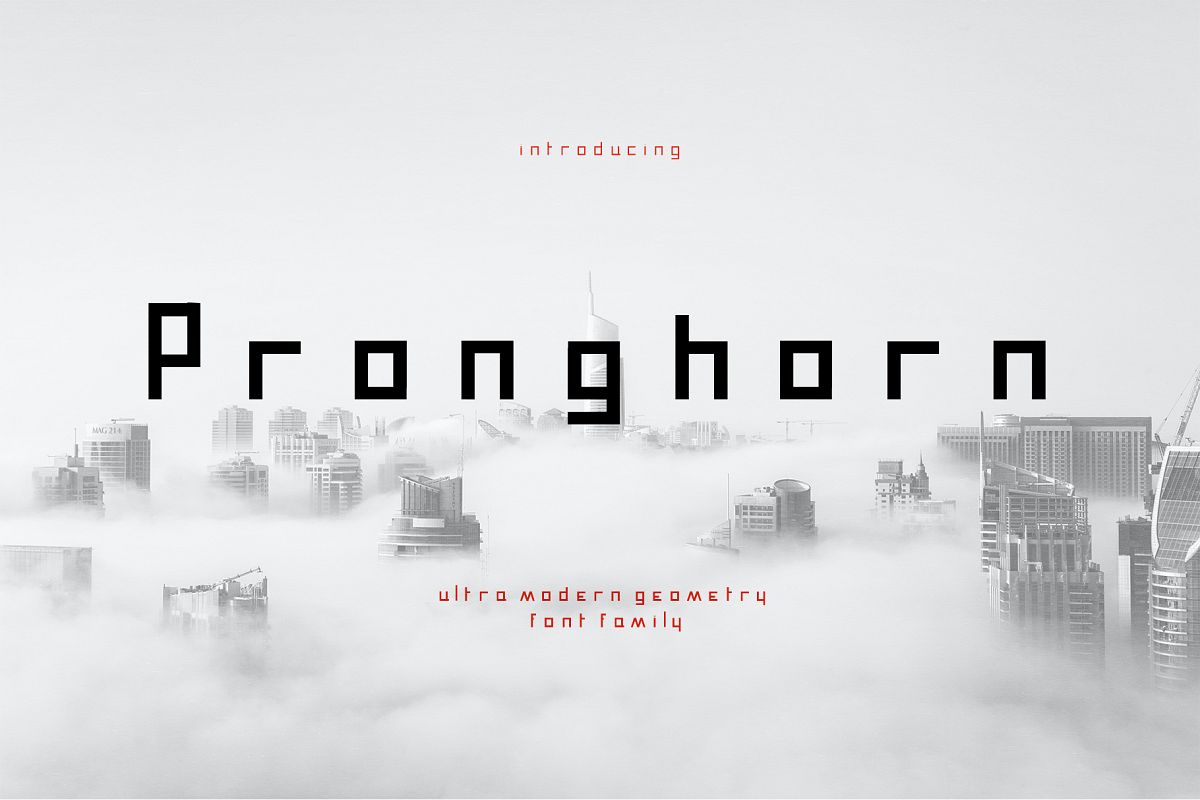
Pronghorn Font Family
Pronghorn Regular
Pronghorn Light
Pronghorn Bold
Pronghorn Hollow Black
Pronghorn Hollow Bold
Pronghorn Black
Introducing Pronghorn! The ultra modern geometric font family that will be a perfect match for those who love the order and straight lines. Pronghorn font family will suit you best if used in stationery design, business cards, logos, banners, blogs, etc.Archive includes: